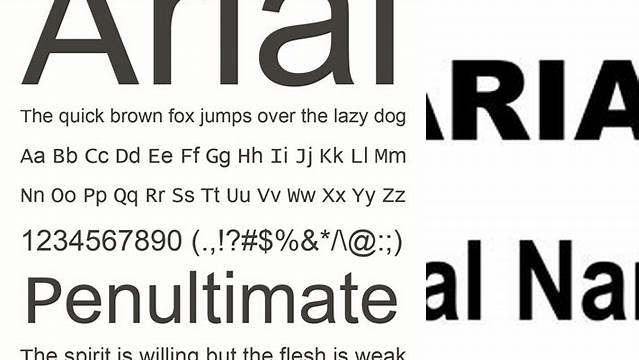
Arial, a ubiquitous and versatile typeface, is a staple in the world of design and typography. Its clean lines and readability make it perfect for a wide range of applications, from body text in documents to headings and branding materials. Whether you're a seasoned designer or just starting out, having access to Arial font is essential. So, let's dive into how you can snag a free download of this iconic font!
Arial Font: An Overview
Before we jump into the download process, let's briefly discuss what makes Arial so popular. Created by Patricia Saunders and Robin Nicholas in 1982, Arial was designed to be a metrically compatible alternative to Helvetica. This means it shares similar dimensions, allowing for easy substitution without disrupting the layout.
Its neutrality and legibility have made it a go-to choice for everything from official documents to website copy. In fact, you're probably reading something in Arial or a similar sans-serif font right now! The widespread use of Arial underscores its significance in digital communication and design.
Why You Need Arial Font
Arial is more than just a font; it's a versatile tool that can enhance the quality and readability of your projects. Here’s why you should consider adding it to your font library:
- Versatility: Arial works well in various contexts, from formal reports to creative designs.
- Readability: Its clean, sans-serif design ensures that text is easy to read, even at small sizes.
- Compatibility: Arial is widely supported across different operating systems and software, ensuring consistency in your projects.
- Professionalism: Using a well-established font like Arial can add a touch of professionalism to your documents and designs.
Arial vs. Arial Alternatives: What's the Difference?
You might be wondering, "If Arial isn't always free, what are some good alternatives?" Great question! While Arial is a solid choice, exploring alternatives can give your designs a unique flair. Here are a few popular sans-serif fonts that are similar to Arial:
- Helvetica: Often considered Arial's closest cousin, Helvetica is another classic sans-serif font known for its neutrality and readability.
- Open Sans: A widely used open-source font, Open Sans is a great alternative for web projects. It's clean, legible, and available under the Apache License.
- Roboto: Developed by Google, Roboto is a modern sans-serif font that's optimized for screen readability. It's a popular choice for Android devices and web applications.
- Verdana: Designed specifically for on-screen reading, Verdana has wider letter spacing and taller x-height, making it exceptionally legible.
Using Arial Font in Your Projects
Now that you've installed Arial, it's time to put it to work! Here are some tips for using Arial effectively in your projects:
- Body Text: Arial works well for body text in documents, reports, and articles. Its readability ensures that your audience can easily follow your content.
- Headings: Use Arial for headings and subheadings to create a clear visual hierarchy. Experiment with different font weights and sizes to add emphasis.
- Logos and Branding: While Arial might not be the most unique choice for logos, it can be a reliable option for creating a clean and professional brand identity.
- Web Design: Arial is a web-safe font, meaning it's likely to be available on most users' computers. This makes it a safe choice for ensuring consistent typography across different browsers and devices.
When creating infographics, it's essential to choose a font that's clear and easy to read. Arial is a reliable choice for infographics because it's legible and doesn't distract from the data.
Arial Font and Website Headers
When using Arial in website headers, its important to ensure the size is appropriate to be readable.